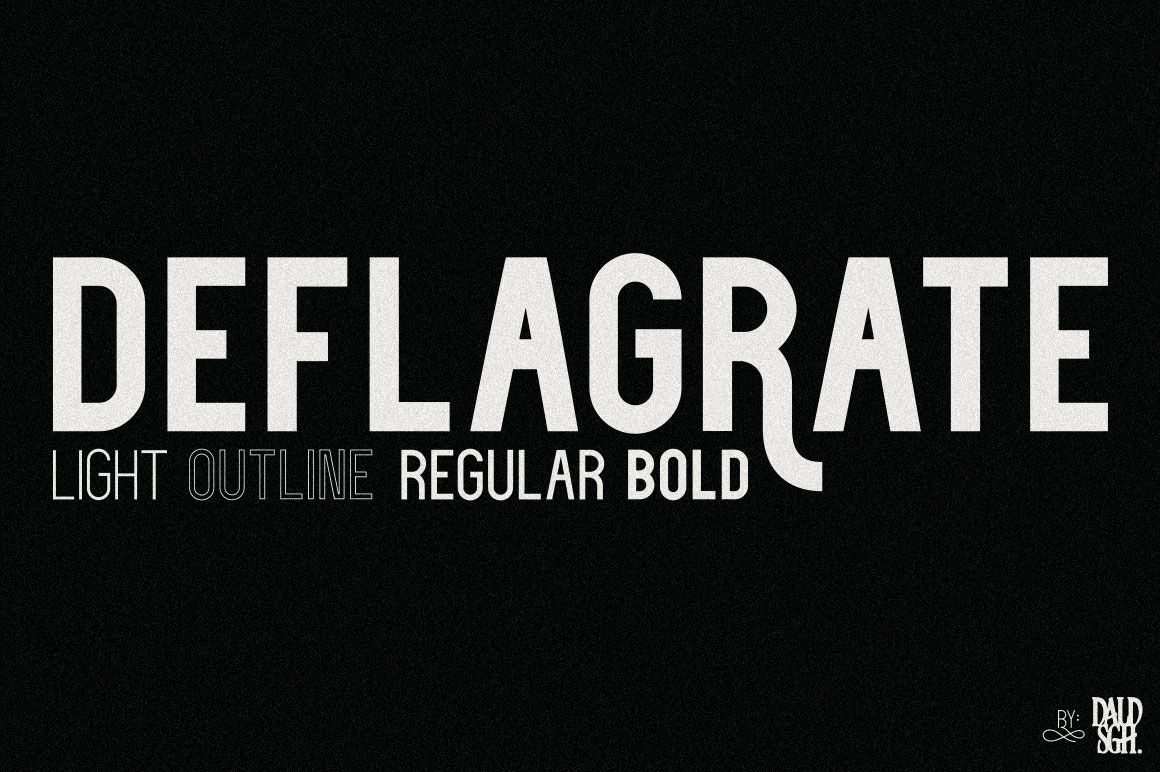
Deflagrate Fonts
Deflagrate fonts comes with alternate characters. very suitable as to make a design choice for magazines, packaging, branding , website header, posters, greeting cards, letterhead, and more creative project..
Deflagrate Light Deflagrate Outline Deflagrate Regular Deflagrate Bold